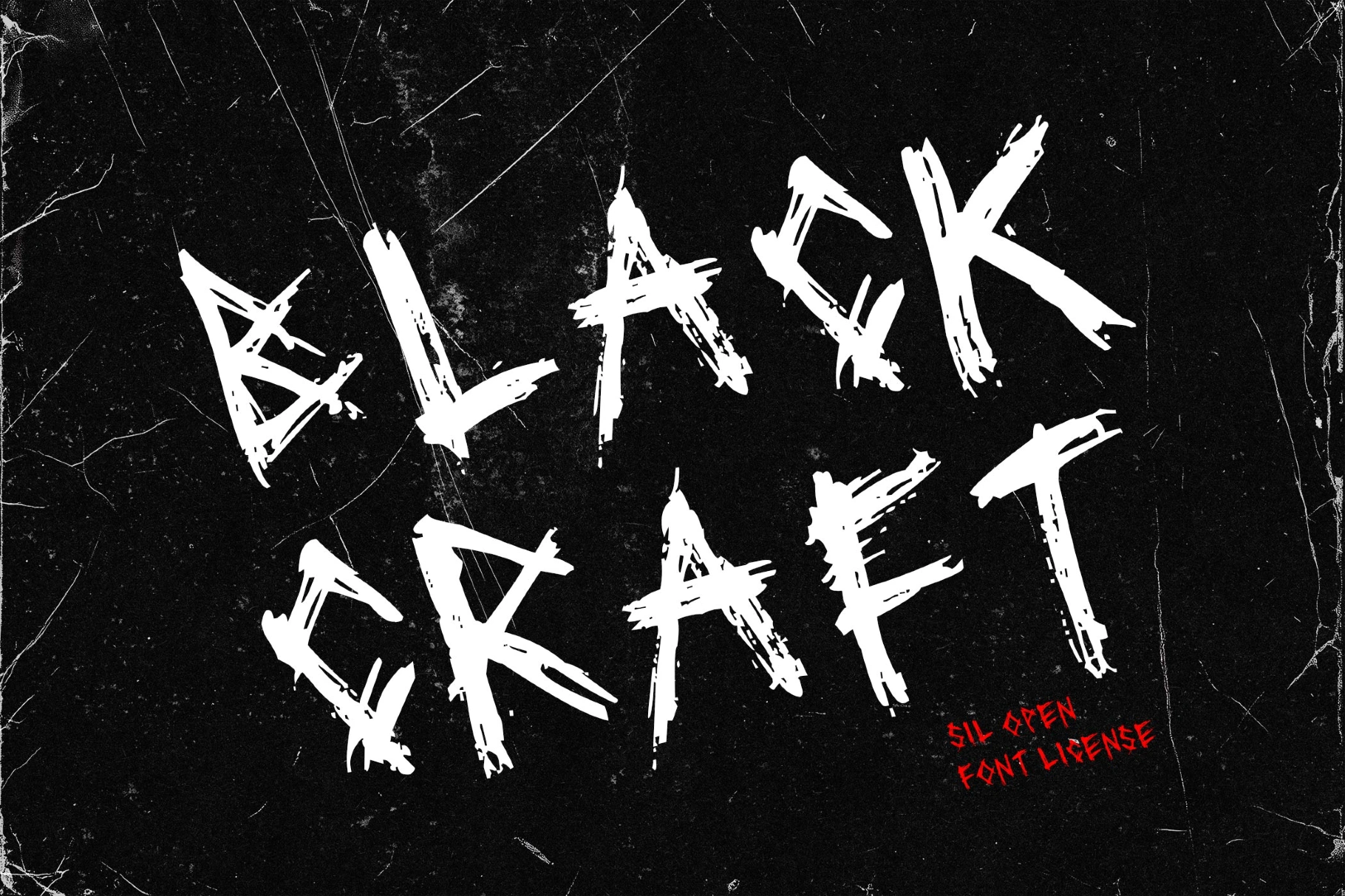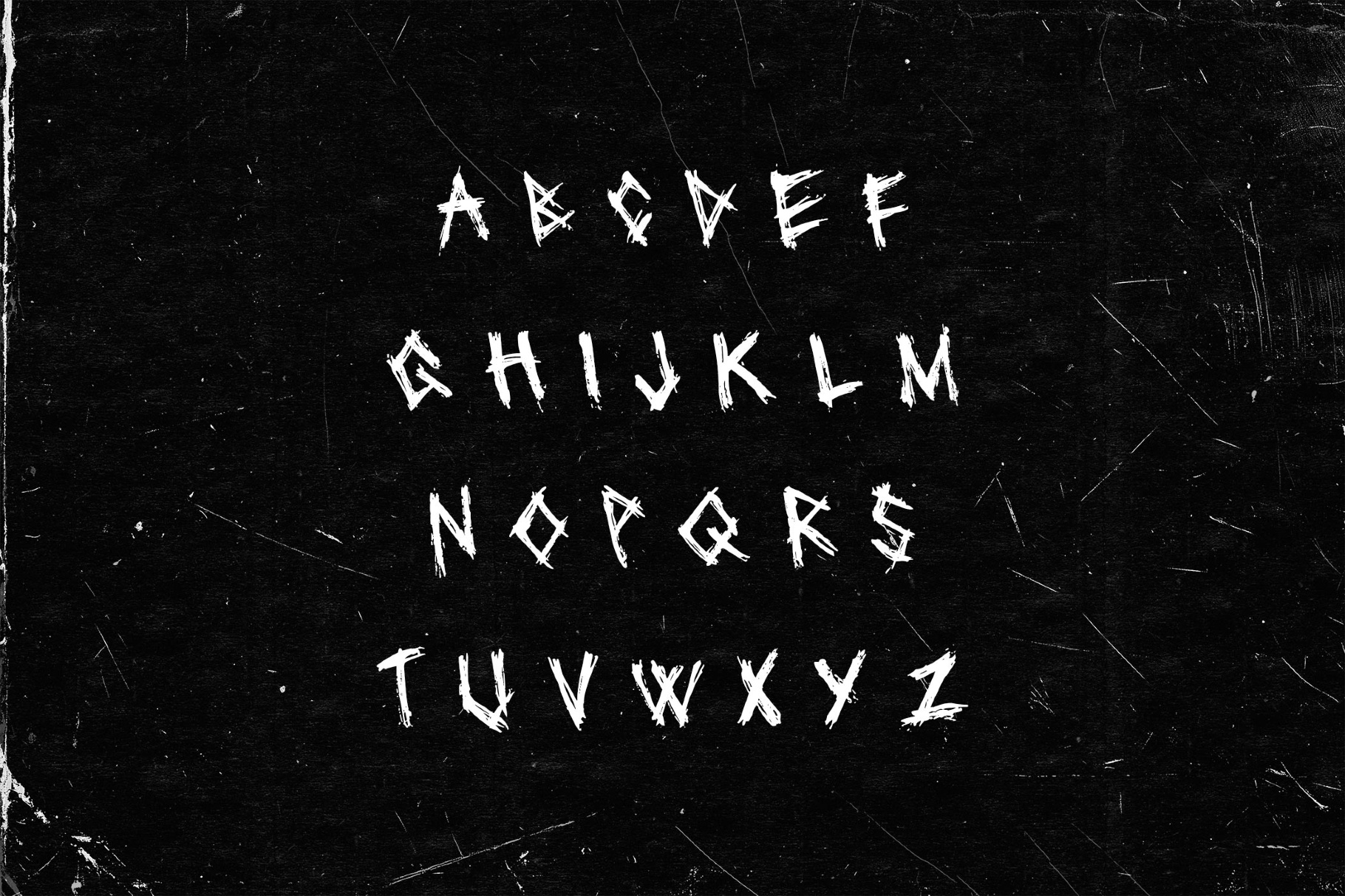
Blackcraft Font
Blackcraft
Blackcraft is built around fast, aggressive brush strokes. The letterforms have a hand-painted look with sharp breaks and irregular edges, giving the type a high-contrast, gritty tone. The font fits projects with a spooky vibe perfectly — horror posters, music artwork, branding, or editorial layouts. The rough brush construction adds movement and intensity, making even short phrases feel charged.